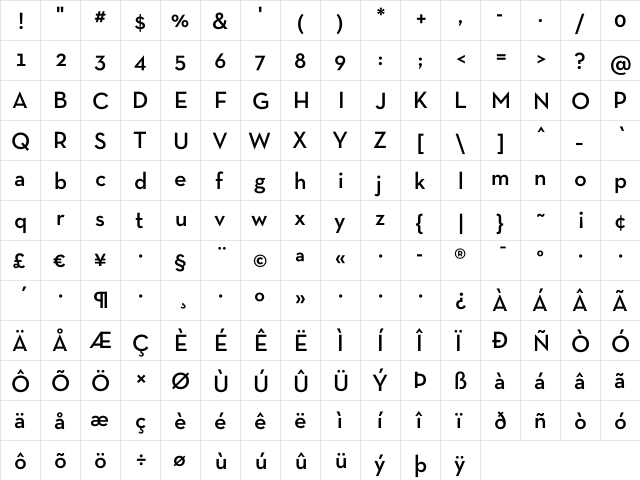
Neutra Text TF Light Demi
| Designer | Christian Schwartz |
Design Context for Neutra Text TF Light Typeface
Neutra Text TF Light offers clean, dependable letterforms without strong stylistic allegiance, making it a practical choice for designers who need flexibility. Its slender proportions lend an understated elegance to any composition.